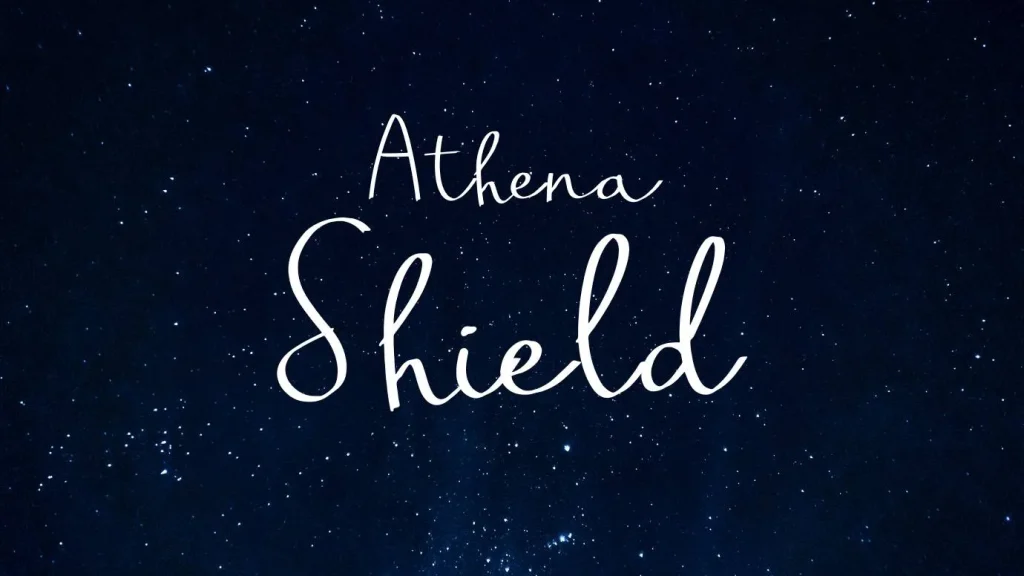
By using the generator tool of this typeface, you can easily create text graphics that can be viewed on your computer. This casual design appeals to the eye
Your design can stand out through Athena Shield font in a variety of ways. You can use this beautiful typeface for creating stunning and unique projects.
By using the generator tool of this typeface, you can easily create text graphics that can be viewed on your computer. This casual design appeals to the eye and is useful and beautiful. If you are looking for a font with lots of traits, this font will be a flawless choice.
A variety of designs can be created with this typeface, including logos, headlines, and web designs. Numerous places, such as fashion magazines, books, newspapers, and company branding, would benefit from the use of this typeface.
With this typeface, you can create a very professional logo, heading, or branding. You'll be able to make your headlines stand out by adding eye-catching glyphs. With this stunning typeface, you can use both lowercase and uppercase letters.